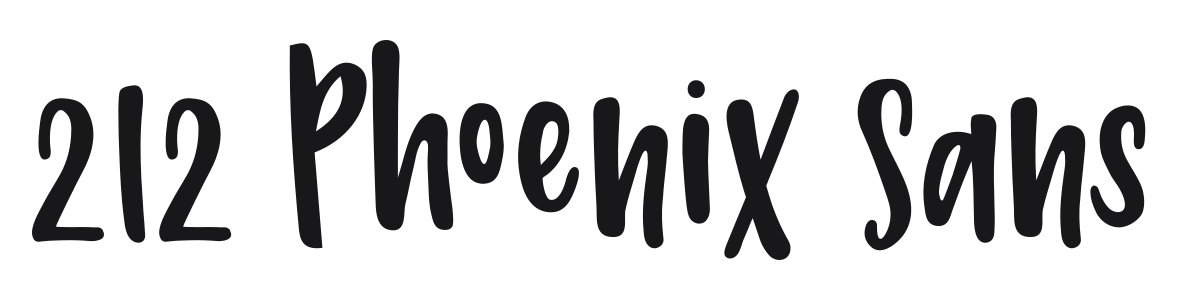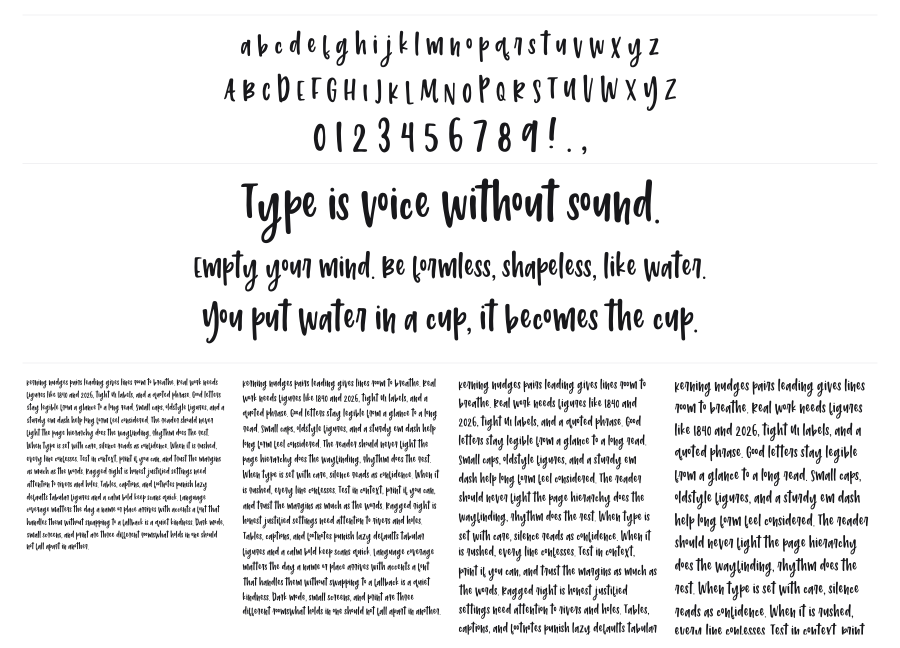
212 Phoenix Sans
212 Phoenix Sans is a bold, hand-lettered casual script with thick rounded strokes and a bouncy, upright rhythm. It carries the energy of a marker-written note, warm and unpretentious without feeling sloppy. Great for children's brands, food packaging, and any project that needs a human, friendly touch.